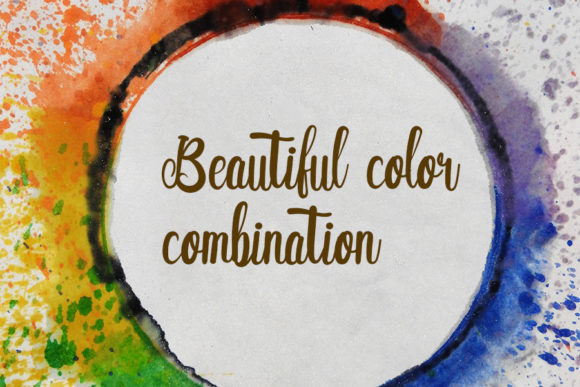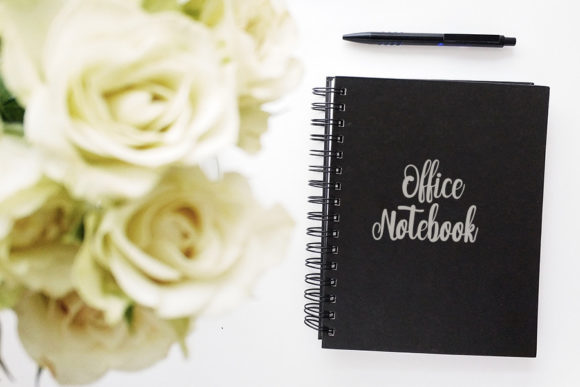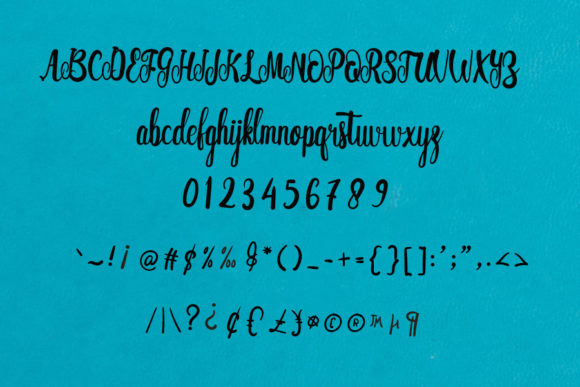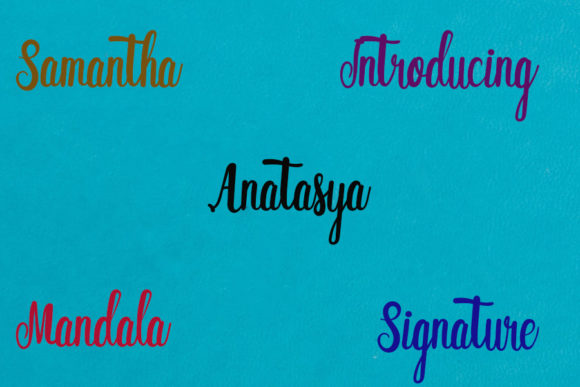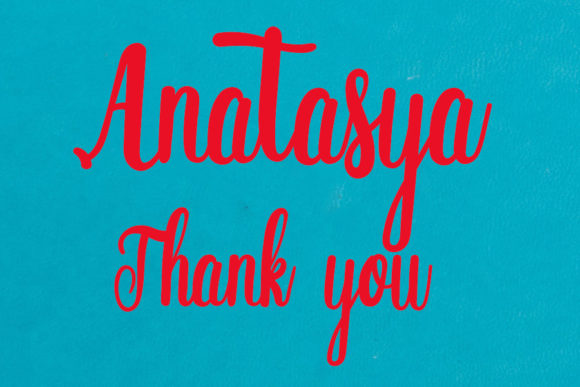
The Quest for the Perfect Font: Discovering Anatasya
Ah, the eternal struggle of finding the perfect font for your design project. I recall a particularly frustrating moment when I was working on a client’s branding materials. The project required a font that was modern, yet elegant; playful, yet sophisticated. I scoured the internet, tried countless fonts, but nothing seemed to fit the bill. That was until I stumbled upon Anatasya, a cool handwritten font that has since become a staple in my design toolkit.
First Impressions: A Balanced and Versatile Font
Anatasya is a modern take on classic calligraphy, with a spotless form that’s neither too thin nor too thick. Its balanced and varied strokes make it perfect for a wide range of design projects, from branding and advertising to packaging and digital media. The font’s unique blend of elegance and playfulness has won me over, and I’m excited to share my experience with you.
So, what do I love about Anatasya? Here are a few highlights:
- ✨ Modern vibe: Anatasya has a distinctly modern feel that sets it apart from more traditional calligraphy fonts.
- ✅ Balanced strokes: The font’s varied strokes are perfectly balanced, making it easy to read and visually appealing.
- 💡 OpenType features: Anatasya comes with a range of OpenType features, including stylistic alternates and glyphs, that allow for endless creativity.
Of course, no font is perfect, and Anatasya has a few minor quirks:
- 🤔 Limited multilingual support: While Anatasya supports several languages, it may not be suitable for projects that require a wide range of linguistic support.
- ⚠️ Occasional kerning issues: As with any font, some users may experience kerning issues in certain applications or platforms.
The Story Behind Anatasya: Designer Inspiration
While the true story behind Anatasya remains a mystery, it’s easy to imagine that the font was created by a designer who appreciates the beauty of classic calligraphy. Perhaps the designer, inspired by the works of ancient calligraphers, sought to create a modern font that would bring elegance and sophistication to design projects. Whatever the inspiration, Anatasya is a testament to the power of typography to elevate and transform design.
| Font Name | Anatasya Font |
| Author | NYA Letter |